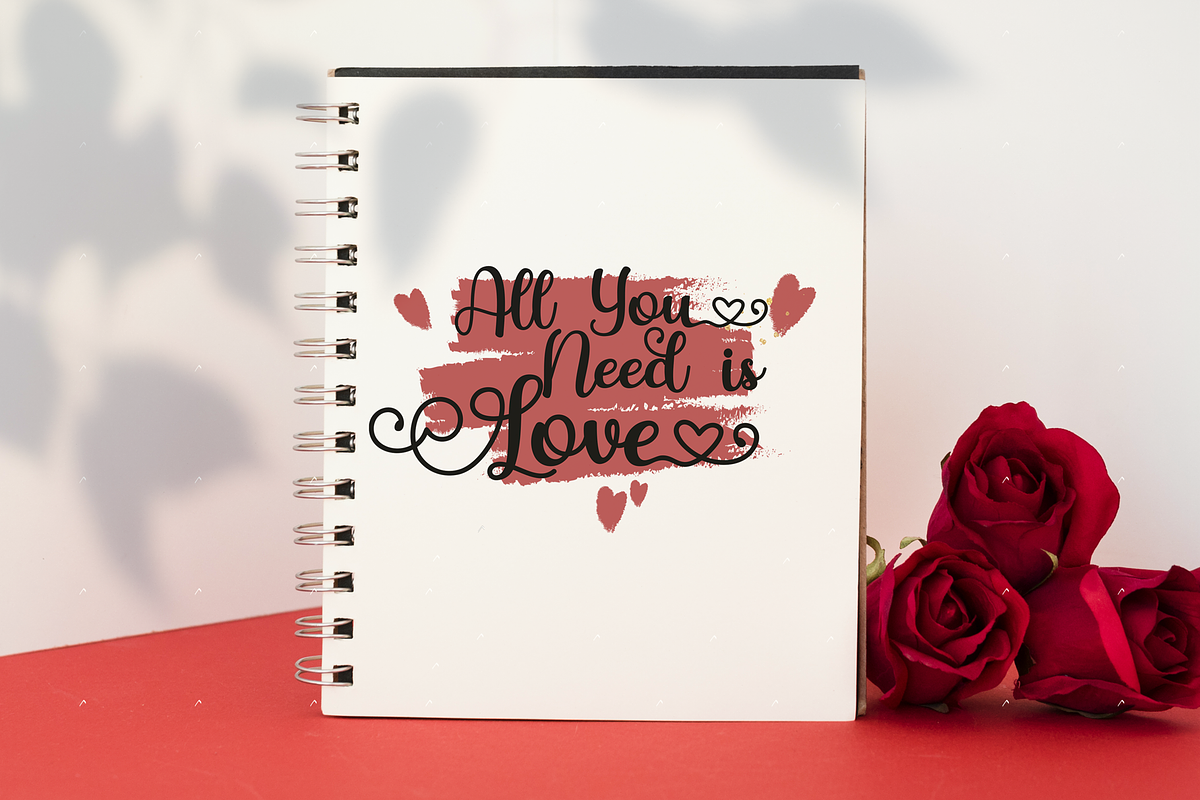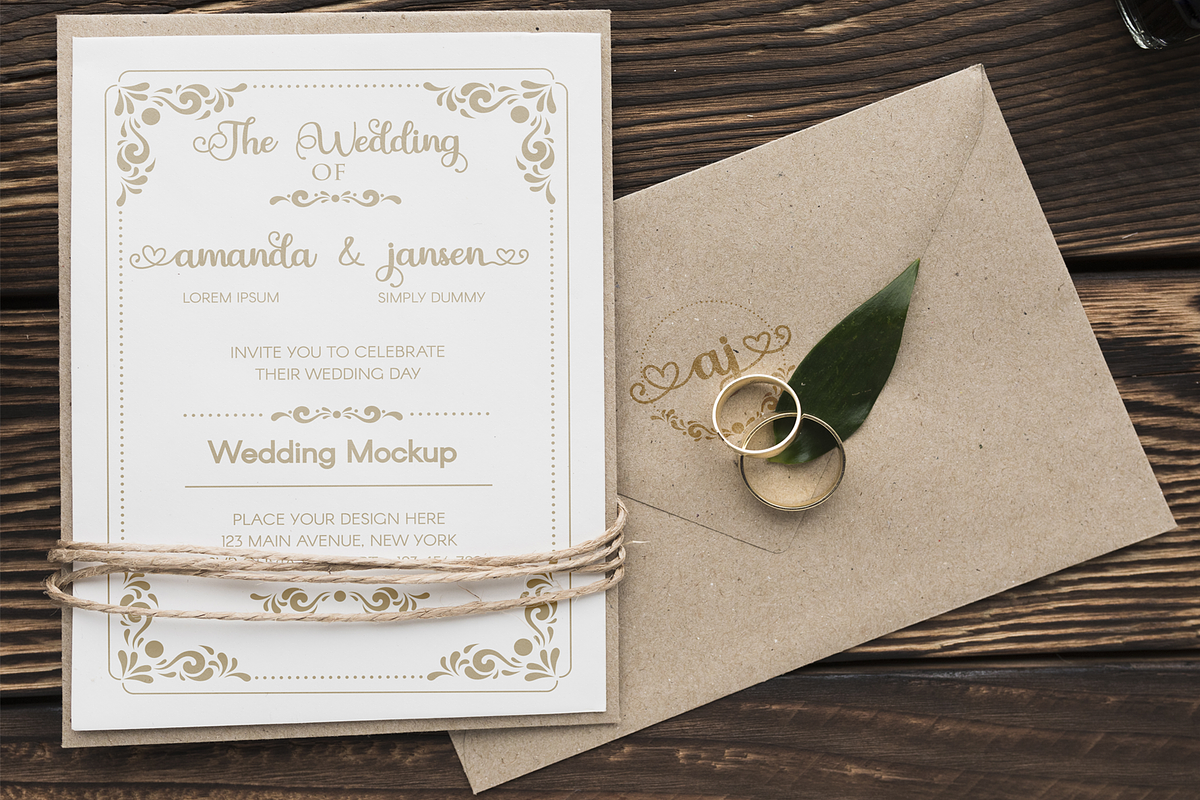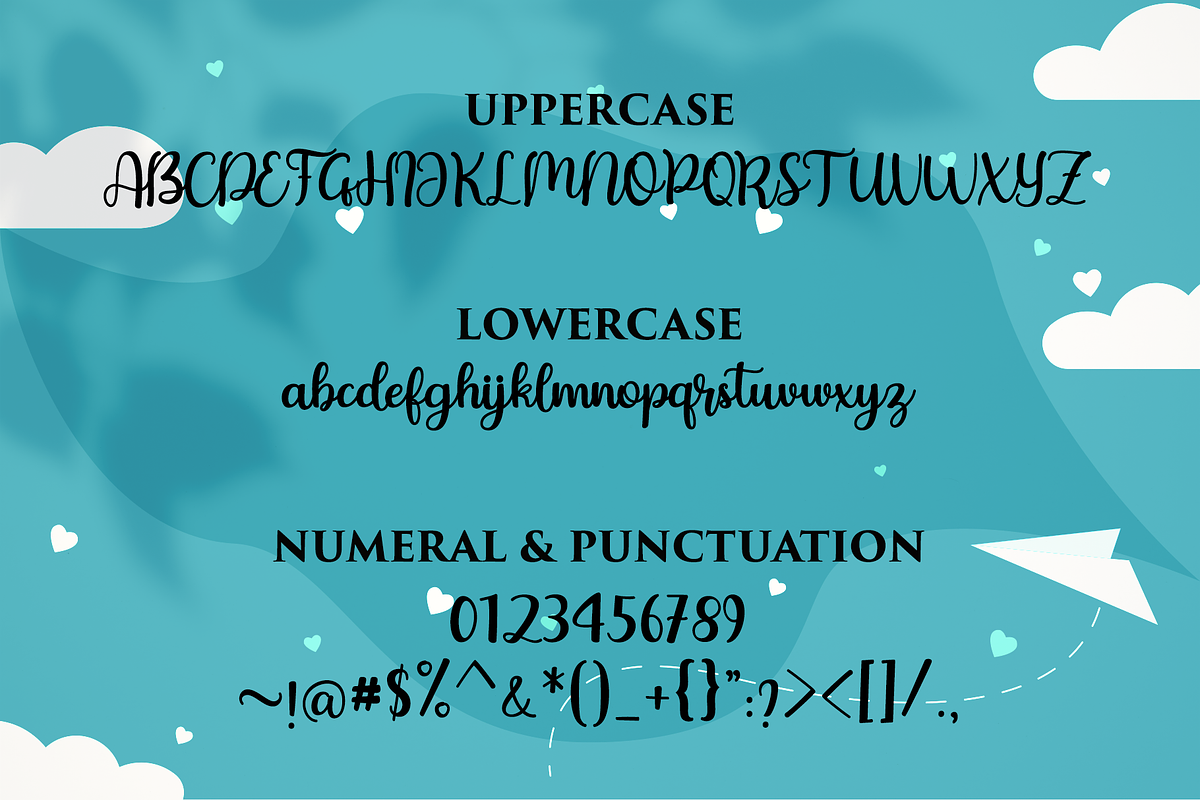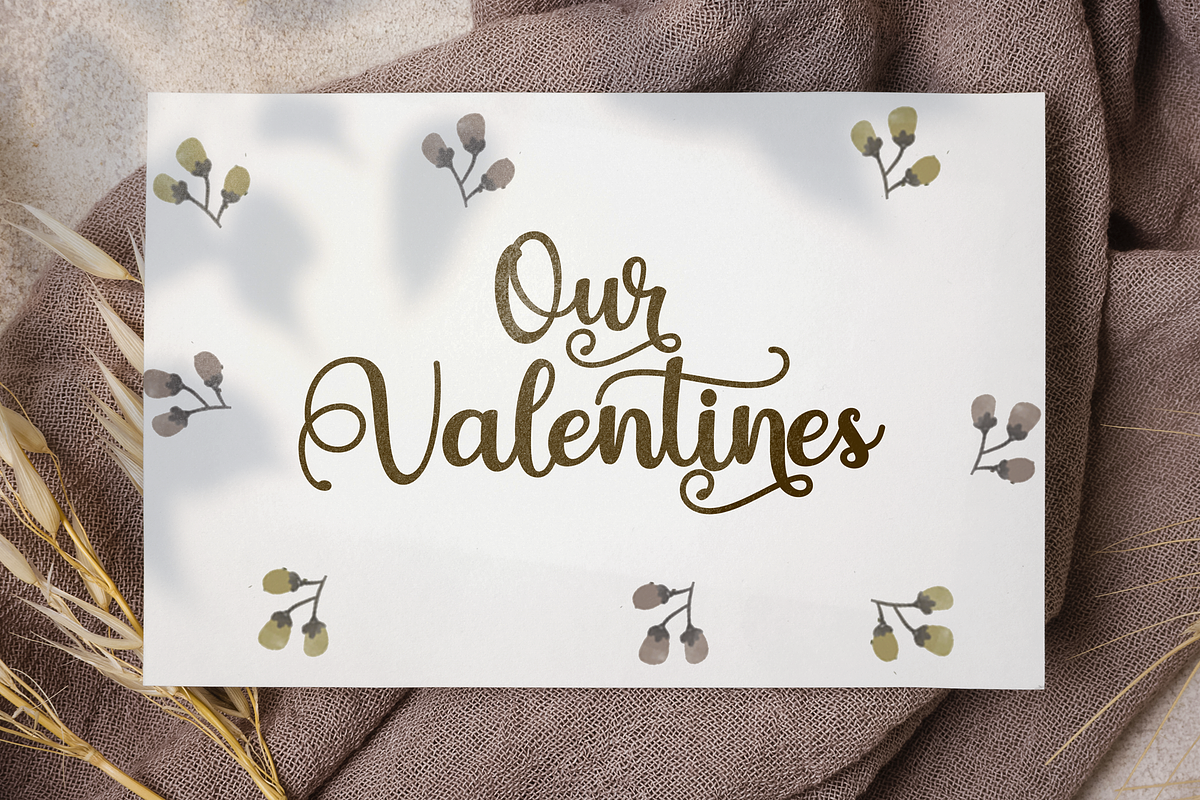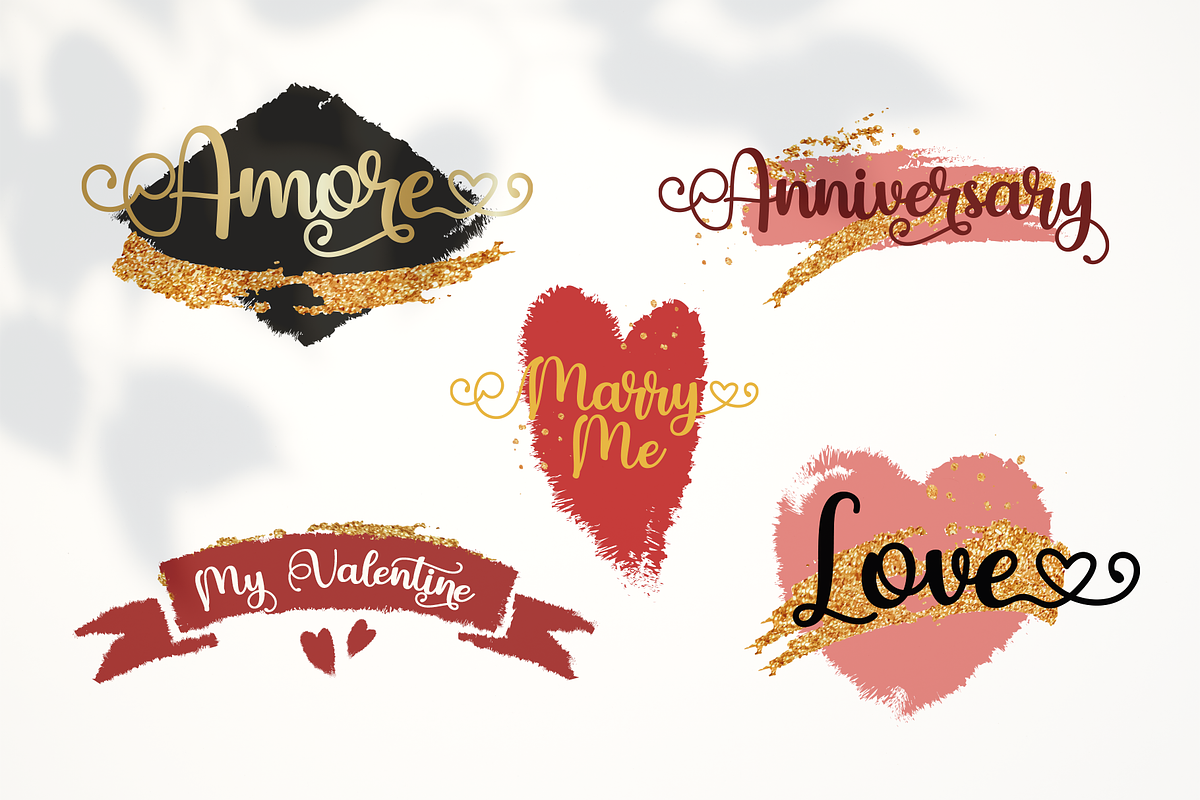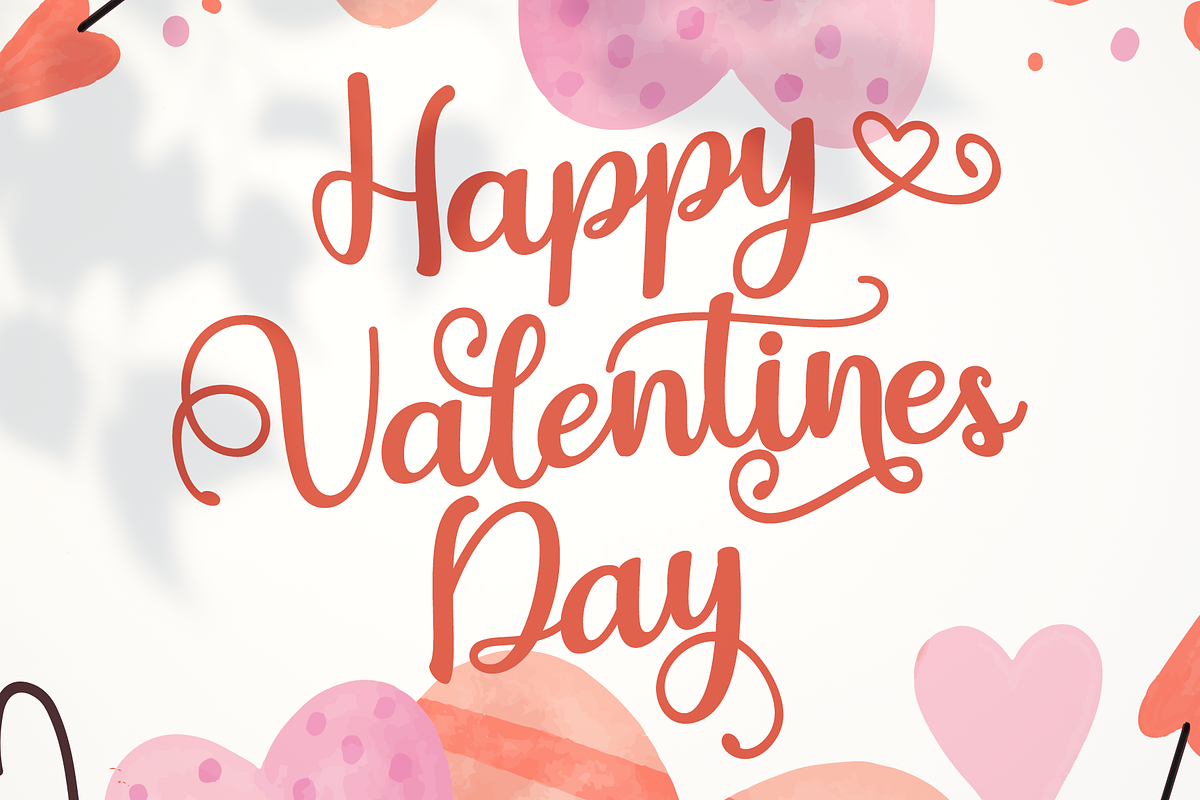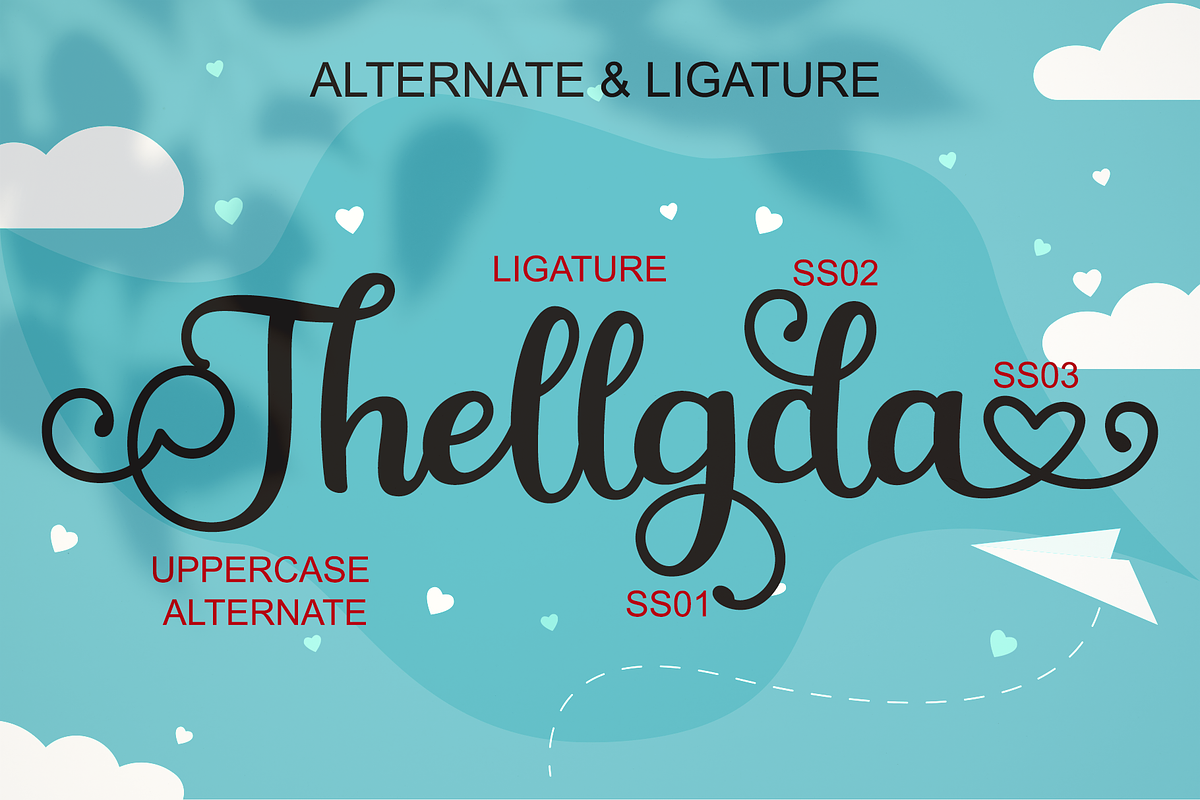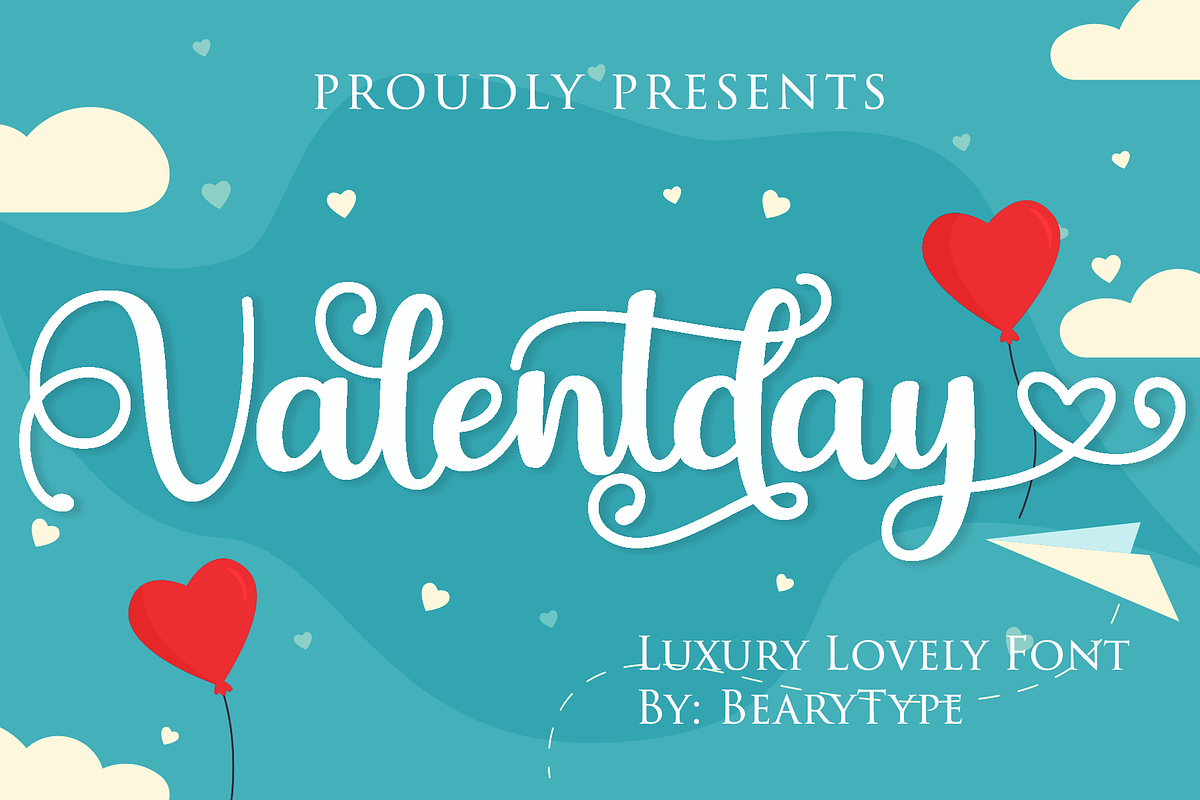
Valentday
Hello guys, Proudly presents our font Valentday. Valentday is mazing hand lettering look attractive and natural! Every single letters have been carefully crafted to make your text looks beautiful.
This font includes 300 glyphs, including 106 alternates character. It has over 60 extended Latin characters for language support. This font is suitable for Wedding invitation, Love themed design, mugs, christmas cards, poster design etc, and also this font is PUA encoded so all characters are accessible via Character Map, Font Book, or the font management program of your choice.